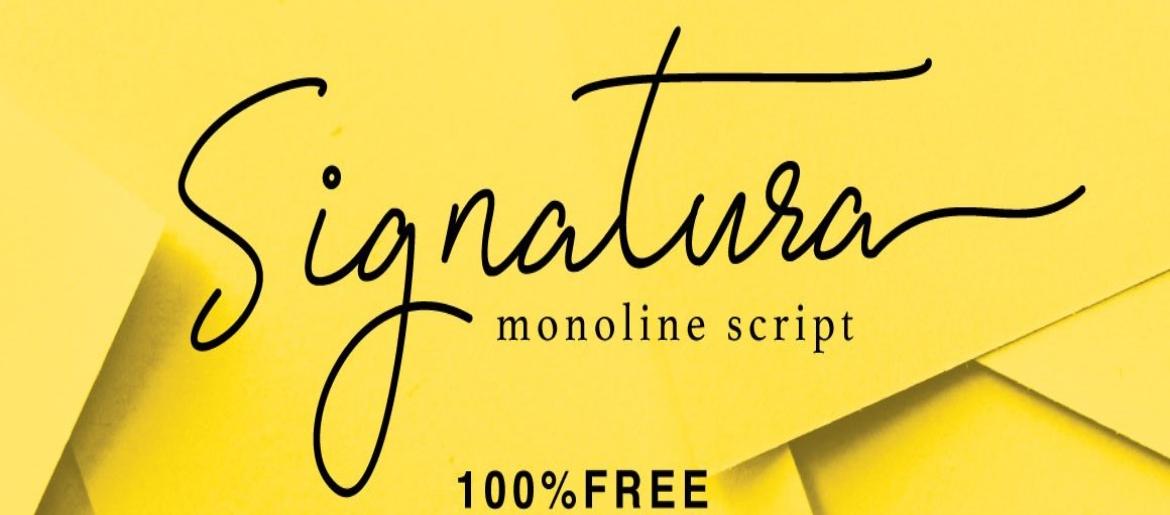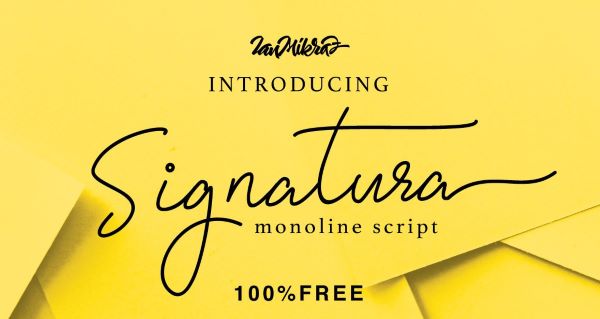
Signatura Monoline
Signatura Monoline Font
Signatura Monoline Font is a handwritten script typeface created by Ian Mikraz, featuring a graceful monoline style. This free fonts choice blends traditional copperplate influence with contemporary typography, delivering elegant and timeless appeal. With 266 glyphs and 86 alternate characters, it suits logos, invitations, branding, packaging, and sophisticated design projects requiring refined handwritten aesthetics.
➤ Font Name: Signatura Monoline
➤ Designer: Ian Mikraz
➤ Style: Script